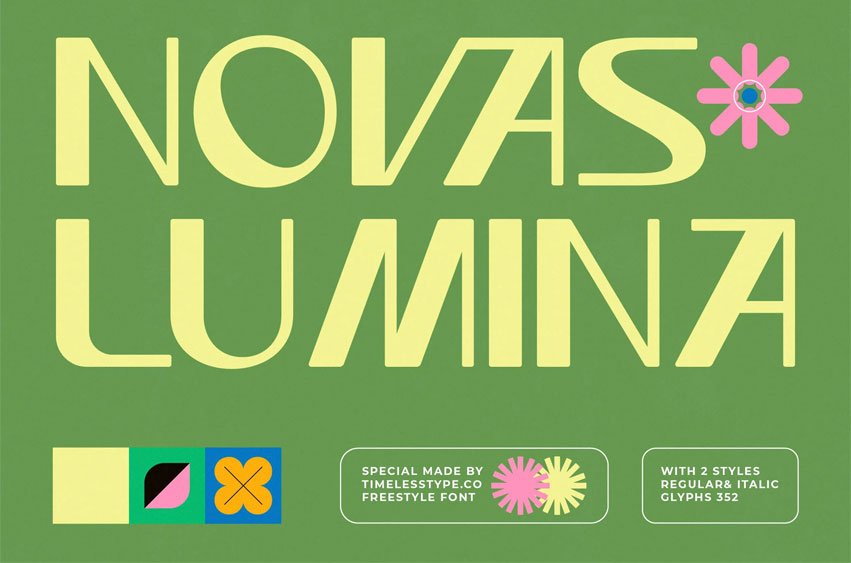
Novas Lumina Font is a modern freestyle display font with clean geometric shapes, sharp angles, and a futuristic yet friendly aesthetic. Designed for standout headlines, branding, posters, logos, editorial layouts, and creative digital projects, this font blends minimalism with a playful retro–sci-fi vibe.
Featuring 2 styles (Regular & Italic) and 352 glyphs, Novas Lumina delivers flexibility for bold creative expression. Each letter is crafted with a unique visual rhythm—perfect for lifestyle visuals, fashion branding, tech concepts, youth culture graphics, and experimental design.